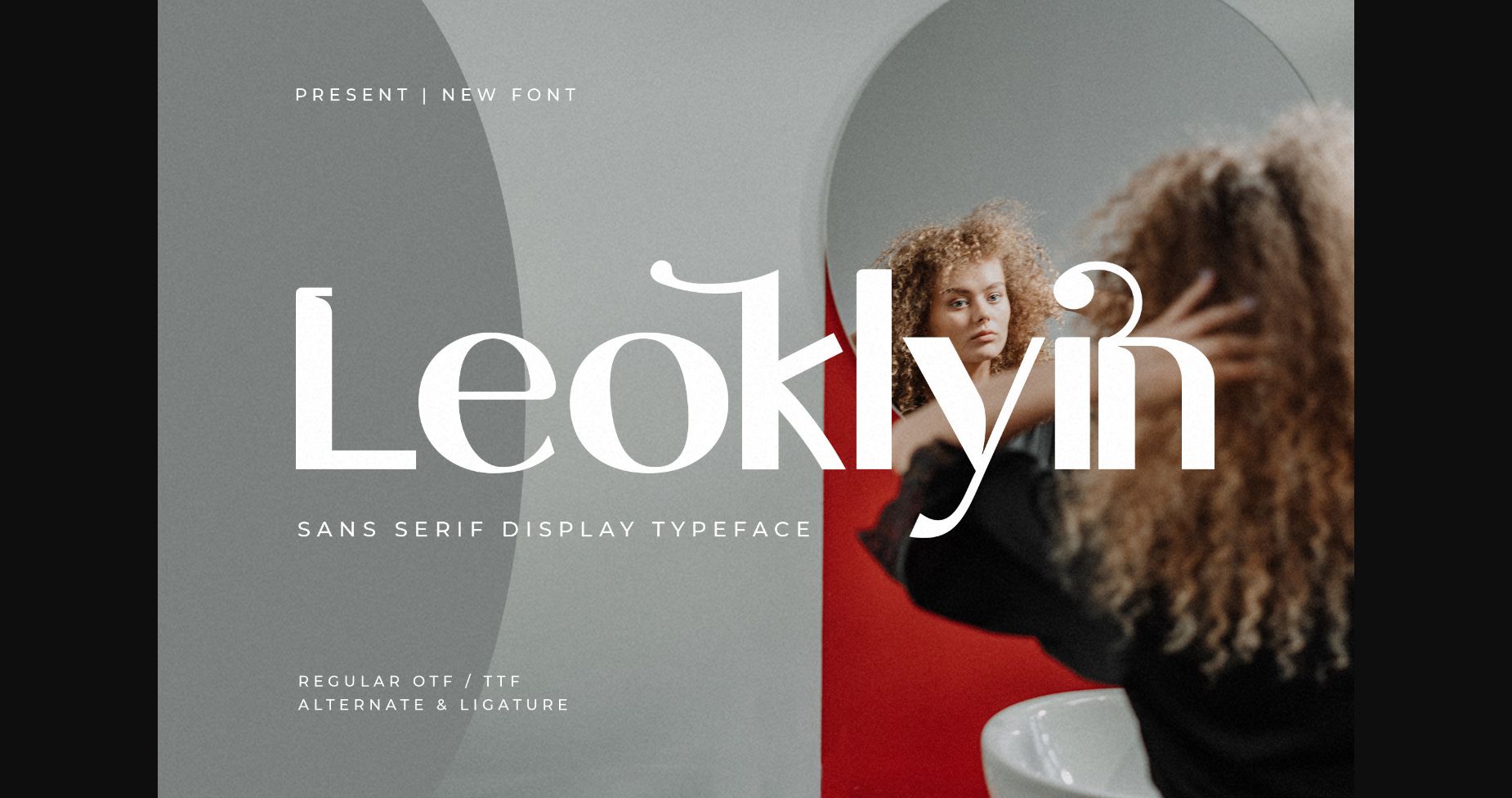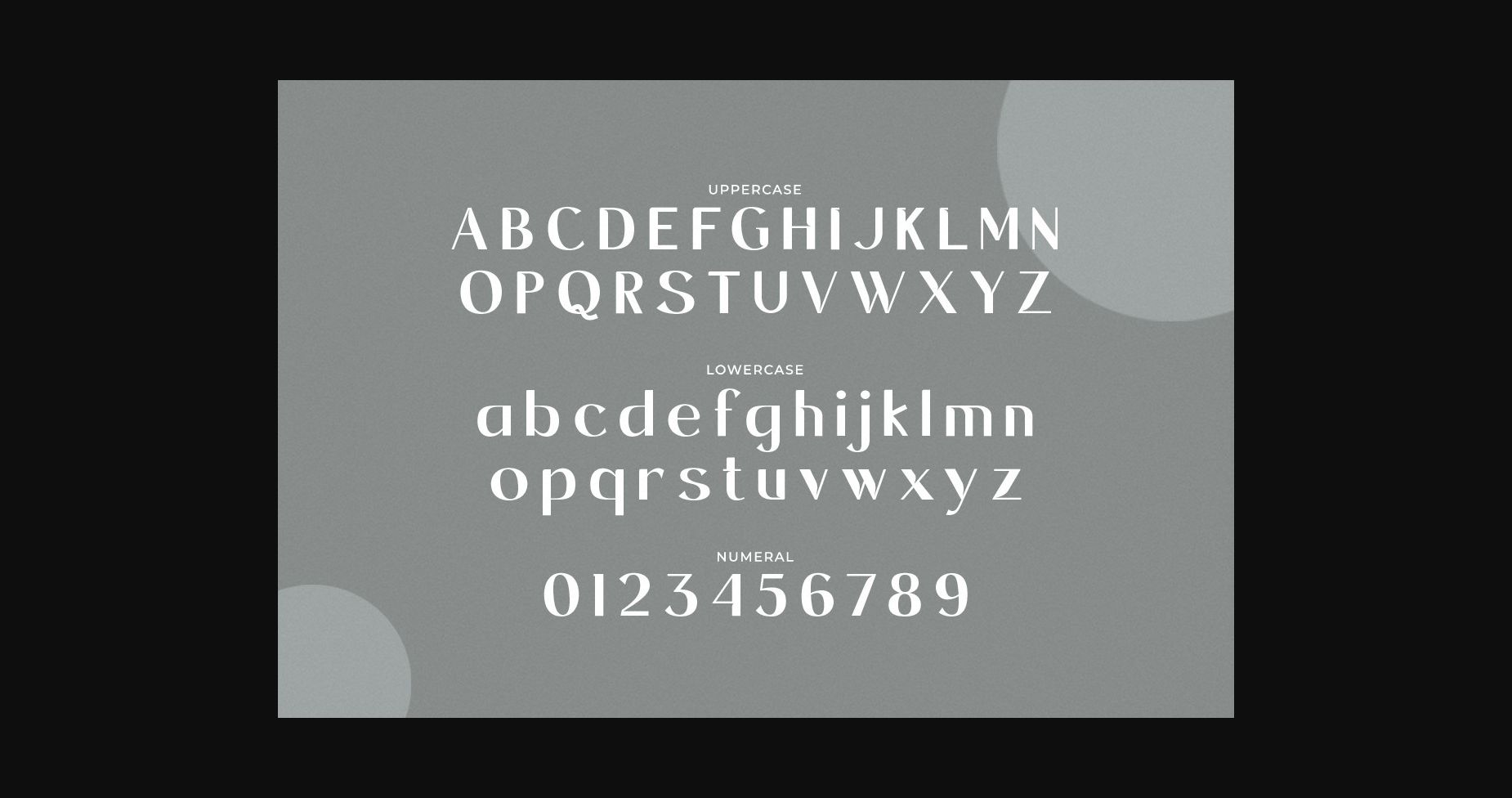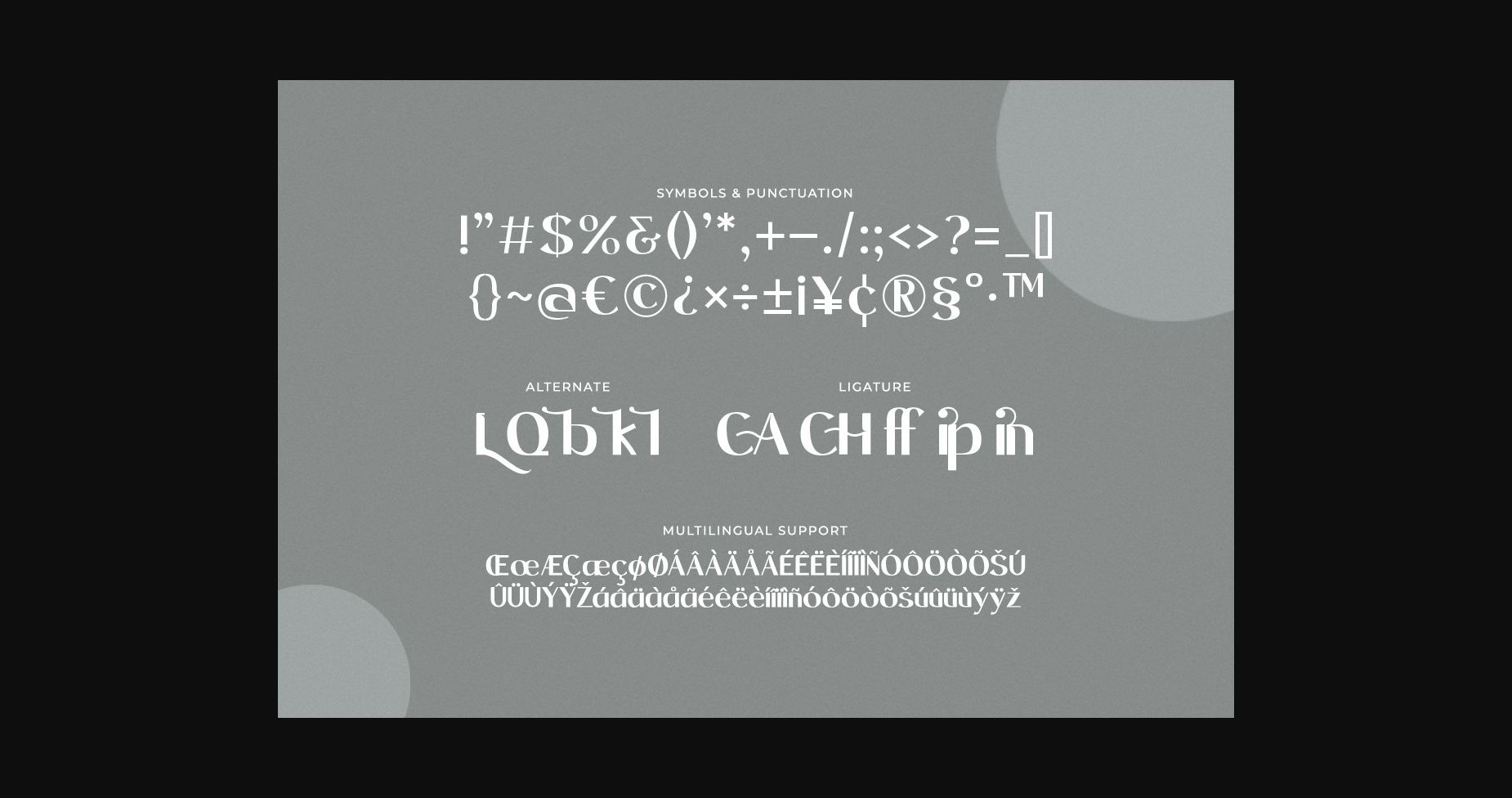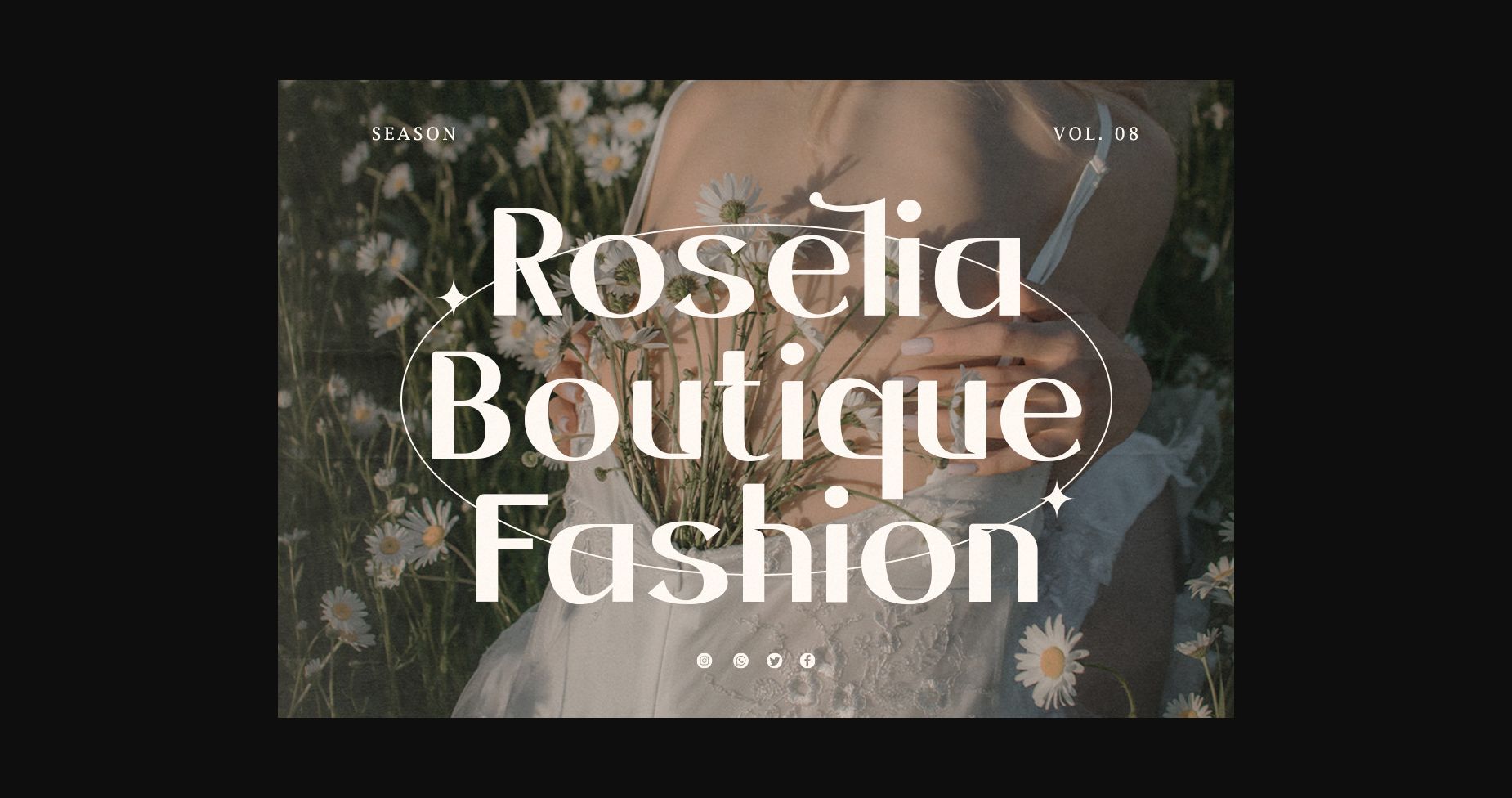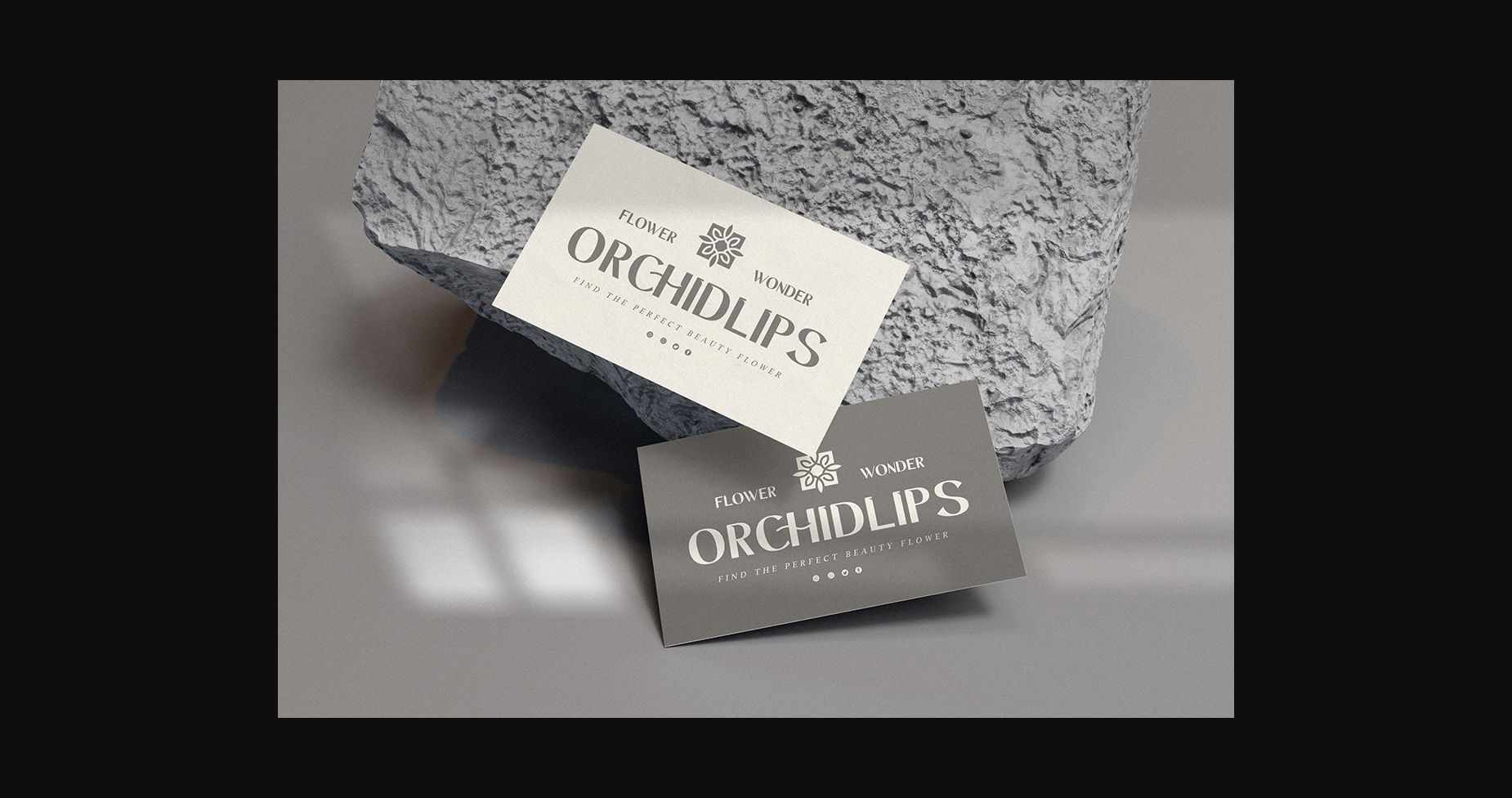
About Leoklyin Font
Leoklyin is a modern and stylish sans display font.
No matter the topic, this font will be an incredible asset to your fonts’ library, as it has the potential to elevate any creation.